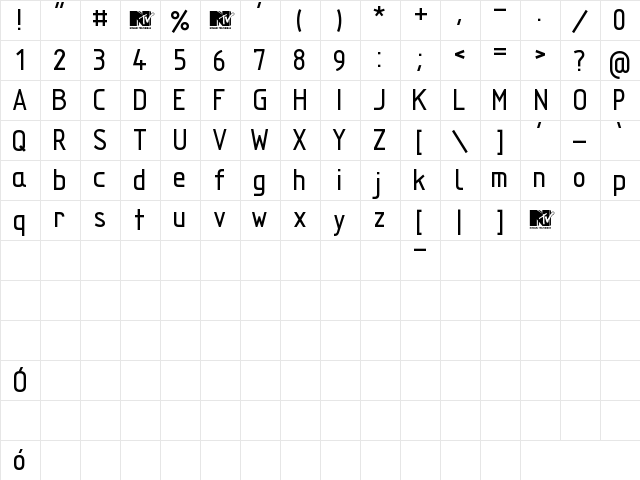
TechnicznaPomoc Regular
| Foundry | fontoholic |
| Designer | bartek nowak |
Design Context for TechnicznaPomoc Typeface
TechnicznaPomoc has a distinctly futuristic character, with geometric precision and clean angles that feel at home in technology, gaming, and sci-fi contexts.